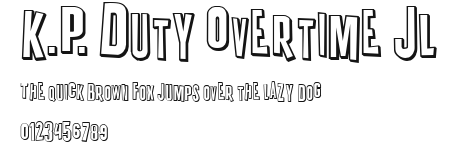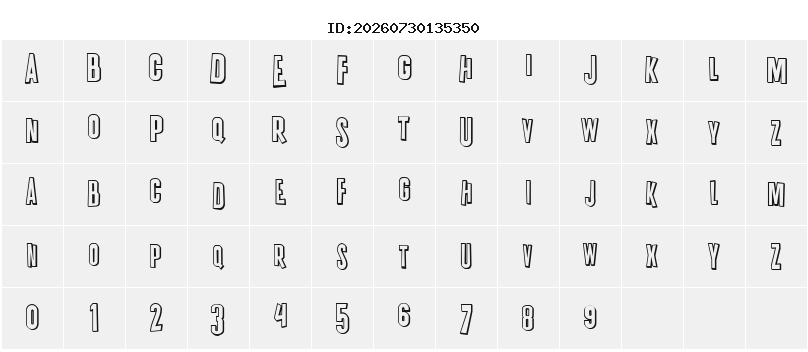
• Designer: Jeffrey N. Levine
• Manufacturer: Jeff's Fonts & Dingbats
• Description: A non-conforming sans serif, varying in height and stroke width. Based on the title lettering on the Elvis Presley soundtrack album "G.I. Blues"...with assistance from Ray Larabie in generating the drop shadow version.
K.P. Duty Overtime JL.ttf is a modern, elegant sans-serif font designed for ultimate readability and visual harmony. Perfect for branding, headlines, web design, and print materials.